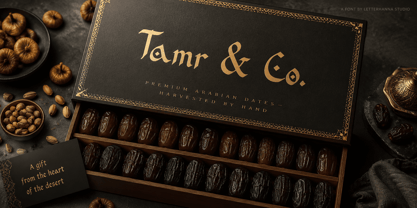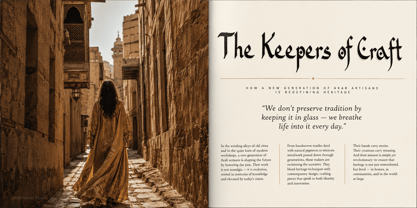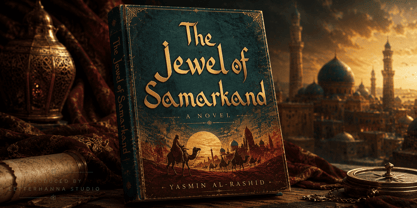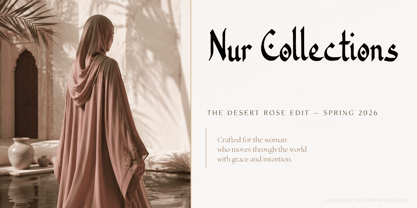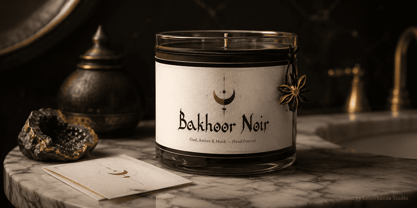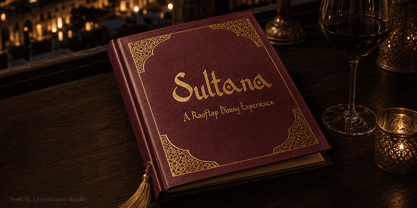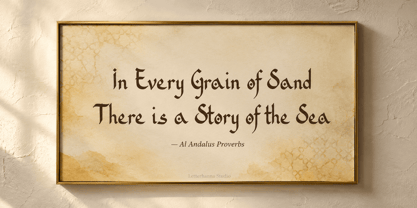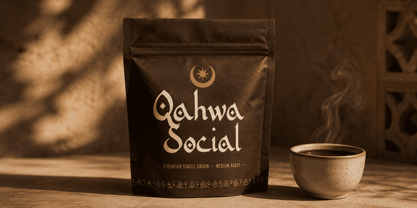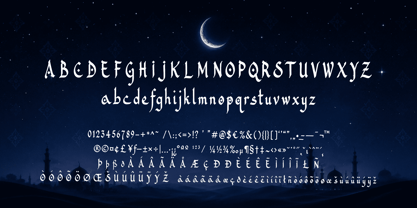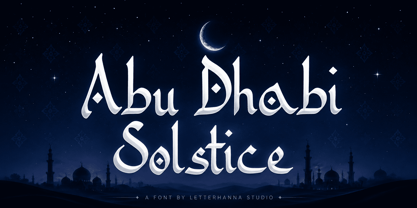
Abu Dhabi Solstice
Inspired by the fluid elegance of Arabic calligraphy and the golden grandeur of the Arabian Gulf, Abu Dhabi Solstice was born from a desire to give Latin typography a soul it rarely owns — one rooted in centuries of Eastern artistic tradition, translated for the modern creative.
The story behind this font begins with a fascination: what happens when the sweeping ink strokes of Arabic script are reinterpreted through Latin letterforms? The result is a typeface that feels ancient and contemporary at once. Every curve was drawn to echo the organic rhythm of a calligrapher's reed pen. Every diamond ornament — those signature dot-like details tucked inside the D, the o, the S — was placed deliberately, like jewels set into architecture.
Abu Dhabi Solstice is built for projects that refuse to blend in. It carries the weight of gold-dipped manuscripts and the warmth of lantern-lit medinas. It speaks the language of luxury perfume brands, cultural editorial spreads, boutique hospitality identities, wedding stationery with an exotic edge, and music artists whose sound lives between worlds.
This is not a font for backgrounds. It is the headline. The first impression. The brand mark that stops the scroll.
Whether you are designing for a client who wants opulence without cliché, crafting packaging that whispers of faraway places, or building a personal brand that carries cultural depth — Abu Dhabi Solstice gives your words a presence that resonates long after the design is seen.